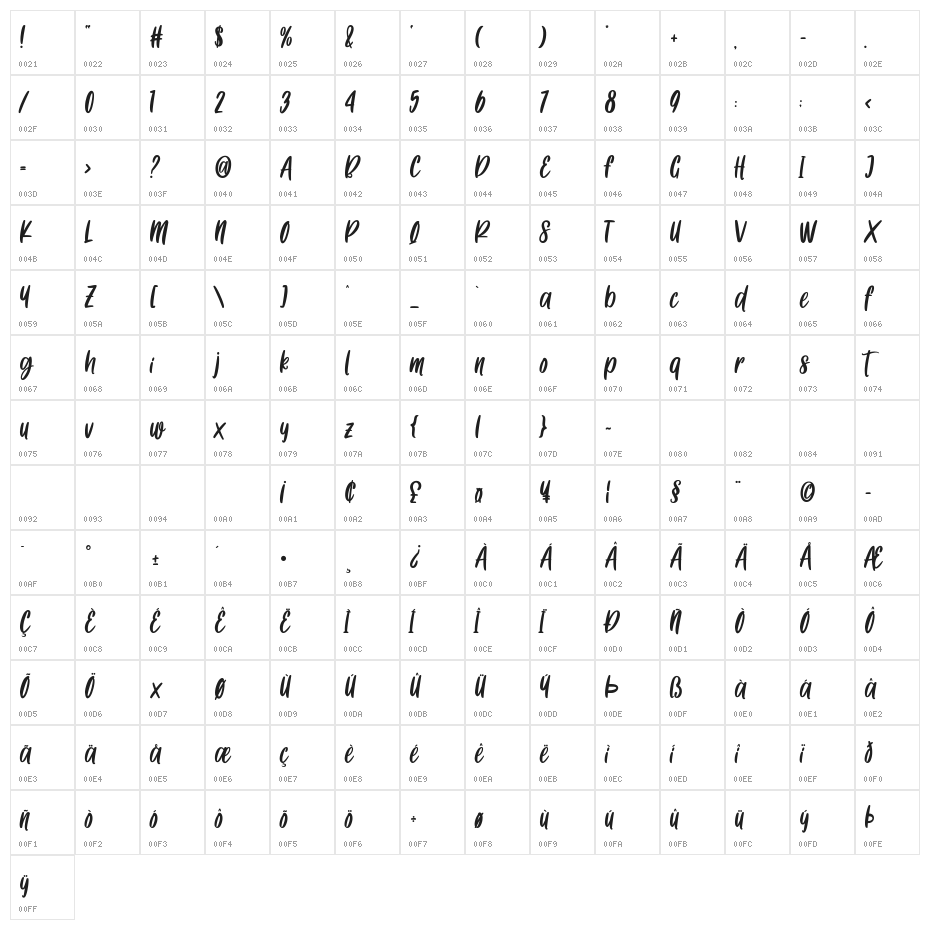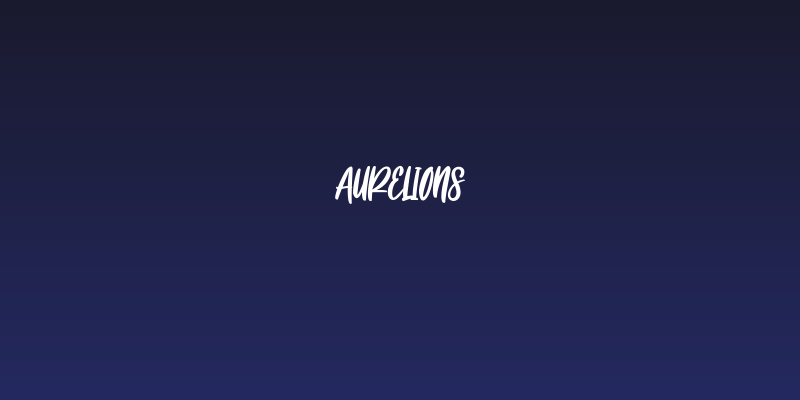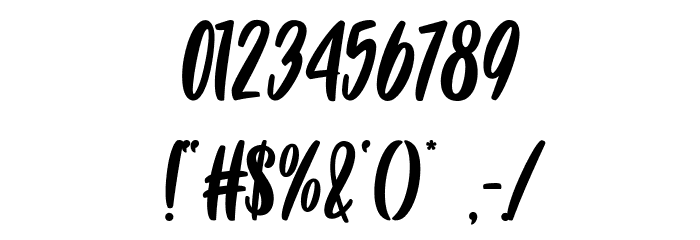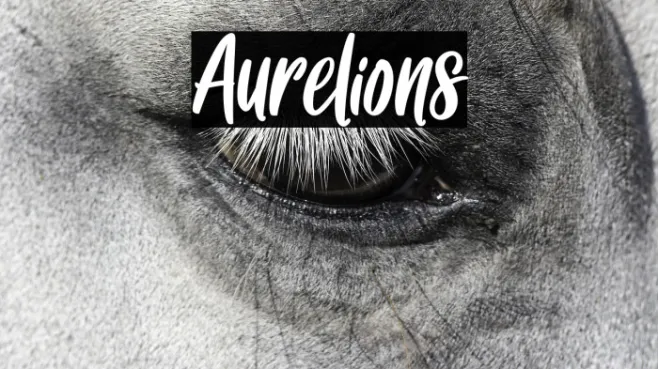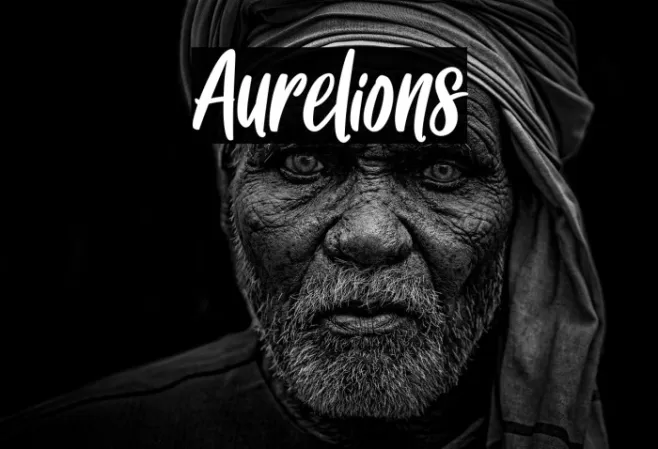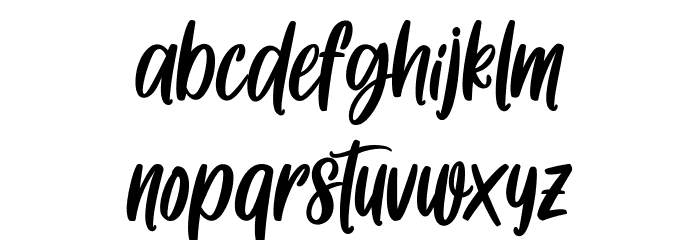
Aurelions Font
Aurelions Description
This font features a bold and expressive handwritten style, characterized by its fluid and dynamic strokes. The letters are slightly slanted, giving a sense of movement and energy. The uppercase and lowercase letters maintain a consistent style, with smooth curves and a playful yet elegant appearance. The numerals and special characters are designed to complement the overall aesthetic, ensuring versatility across different uses. The font's boldness and unique character make it stand out, suitable for creative and artistic projects.